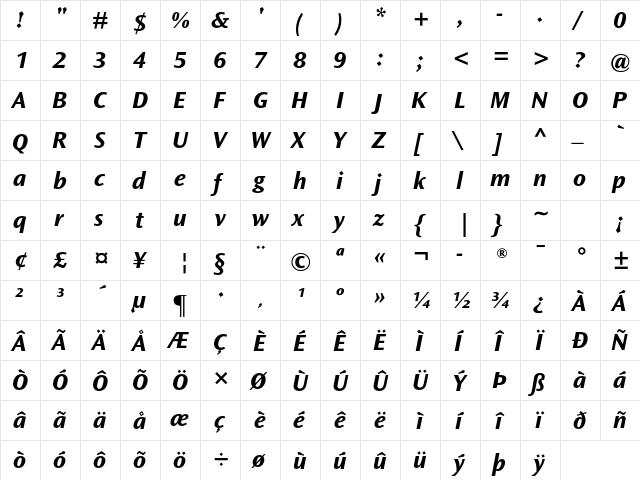
Ocean Sans Std Bold SemiExtended Italic
| Designer | Chong Wah |
Design Context for Ocean Sans Std Typeface
Ocean Sans Std offers clean, dependable letterforms without strong stylistic allegiance, making it a practical choice for designers who need flexibility. The dynamic lean of this cut emphasises speed and emphasis in any layout. The heavy weight commands attention and anchors typographic hierarchies.
Pro Tip: Use Ocean Sans Std for emphasis, pull quotes, and subheadings where its slanted energy can add rhythm to the layout.